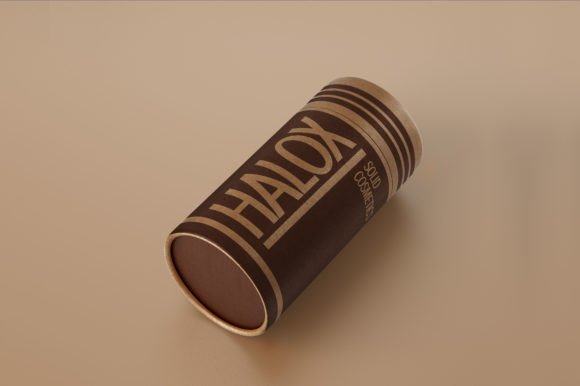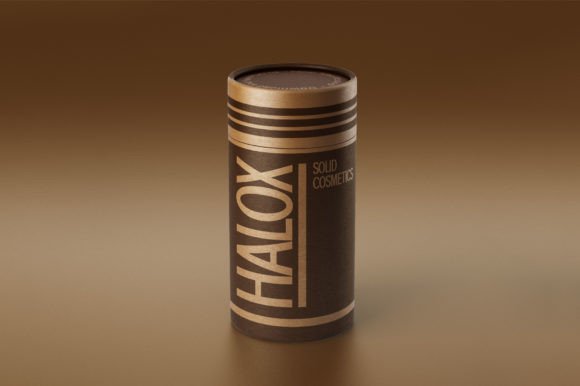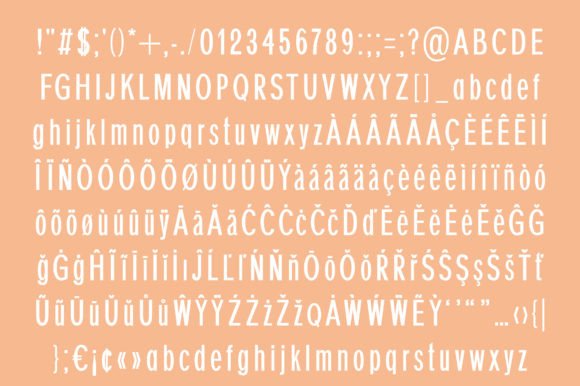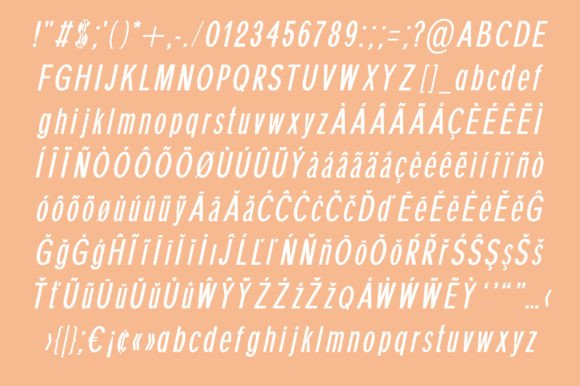
Introduction to Halox Font
As designers, we’ve all been there – staring at a blank canvas, desperately searching for the perfect font to bring our creative project to life. The blank page stares back, taunting us with its emptiness. But what if I told you that there’s a font that can change all that? A font that’s as clean as a transparent background, yet bold enough to make a statement. Say hello to the Halox Font, a game-changing sans serif typeface that’s about to revolutionize the way you approach design.
Whether you’re a seasoned pro or a design newbie, the Halox Font is an invaluable resource that’s sure to elevate your creative game. Its clean, tall, and grotesque design makes it a high-quality choice for any design challenge. From packaging design to product design, die-cutting to fashion, and even cosmetics – this font is a versatile design resource that’s sure to impress. And the best part? It’s available for free download, making it an accessible choice for designers of all levels.
Key Features of Halox Font
- High-quality design resource for creative projects, ideal for graphic designers and artists.
- Unique, modern design with a transparent background, allowing for easy customization and versatility.
- Perfect for use in a variety of creative projects, including logos, branding materials, and digital graphics.
Honest Review: Halox Font
As a designer, I’m always on the lookout for high-quality design resources to elevate my creative projects. The Halox Font caught my attention, and I was eager to put it to the test.
Here’s what I like about the Halox Font ✨: it’s a beautifully crafted font that offers a unique blend of modern and sleek designs. The transparent background makes it easy to work with, and the free download option is a major plus. I also appreciate the font’s versatility, as it can be used for a wide range of creative projects, from logos to web design.
However, there are a few limitations to keep in mind ⚠️:
- The font is limited in its character set, which may not be suitable for all types of projects.
Overall, I’m impressed with the Halox Font, and I’d definitely recommend it to designers looking for a high-quality, free design resource. With its unique design and transparent background, it’s a great addition to any creative project.
Halox Font: A High-Quality Design Resource
Halox Font is ideal for various creative projects, including logos, brochures, business cards, and social media graphics. Its transparent background feature makes it perfect for creating visually appealing designs with a seamless integration of text and background elements.
To get the most out of Halox Font, experiment with different font sizes, colors, and combinations. The font’s high-quality design makes it versatile and adaptable to various design styles. Additionally, take advantage of the transparent background feature to create stunning visual effects and add depth to your designs.